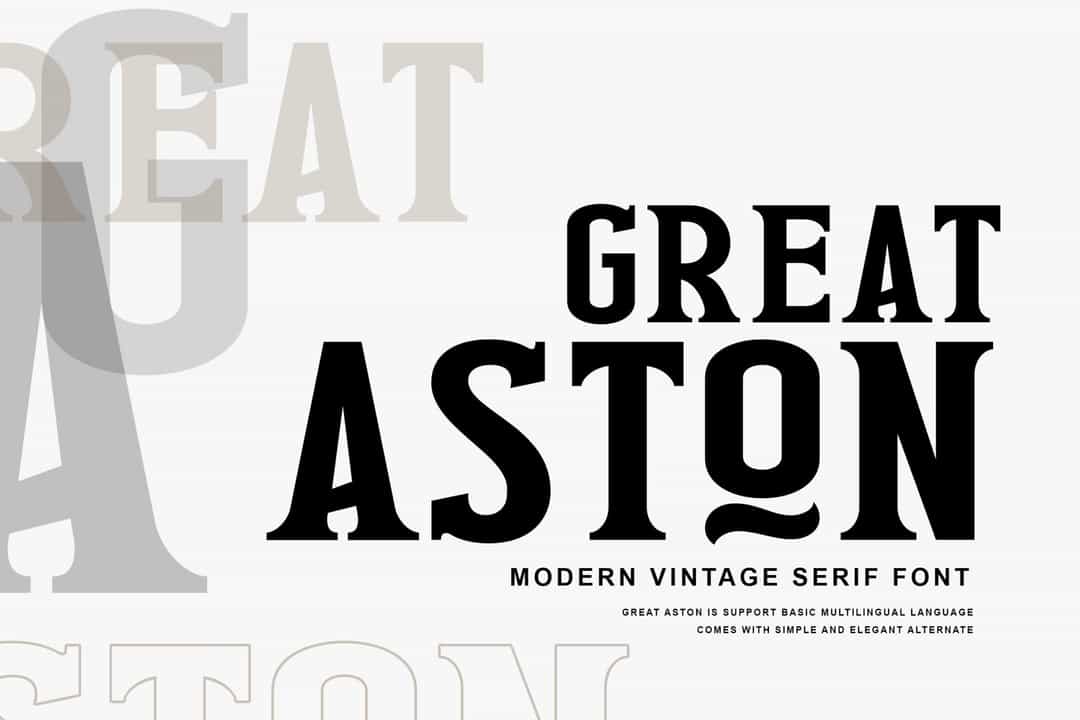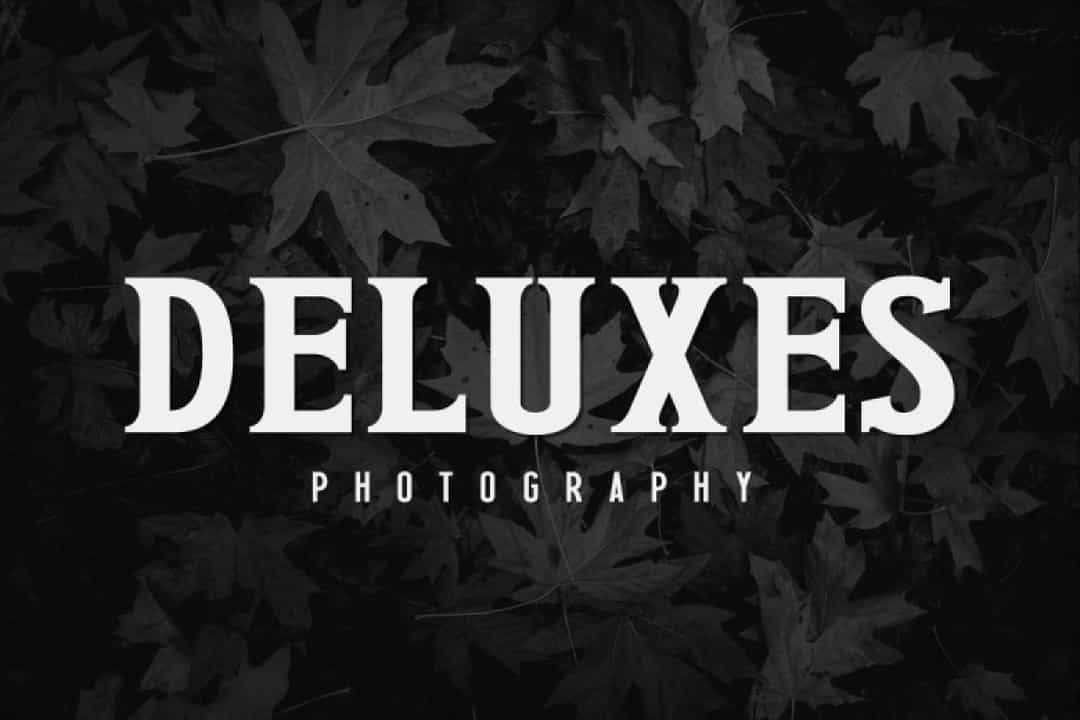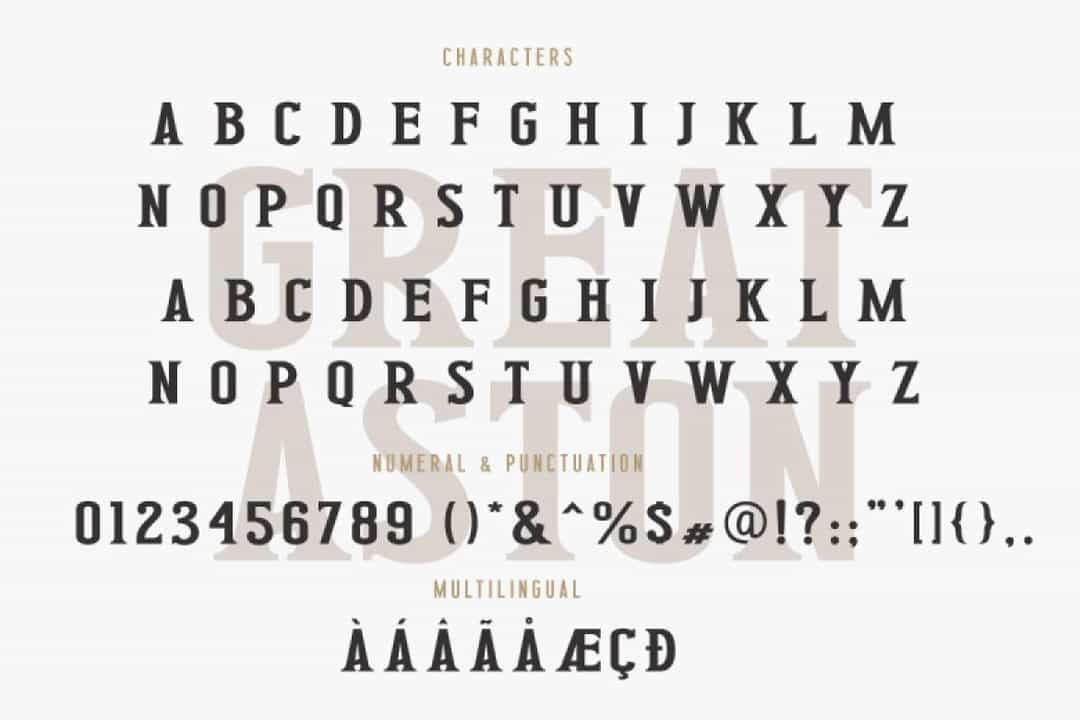
Discover Great Aston Font, part of the Serif Vintage collection—a versatile and unique font perfect for adding a personal touch to your projects. Download it for free and enjoy crafting designs with style, from invitations to social media posts. This font is available exclusively for personal use, giving you the freedom to create without limits. Unlock your creativity with Great Aston Font today!
Great Aston is an elegant and striking serif font with an eye-catching style, easily fitting into projects ranging from logos, magazines, packages and advertisements to advertising fliers and advertisements. PUA encoded for easier accessing of all of its glyphs swashes and characters!